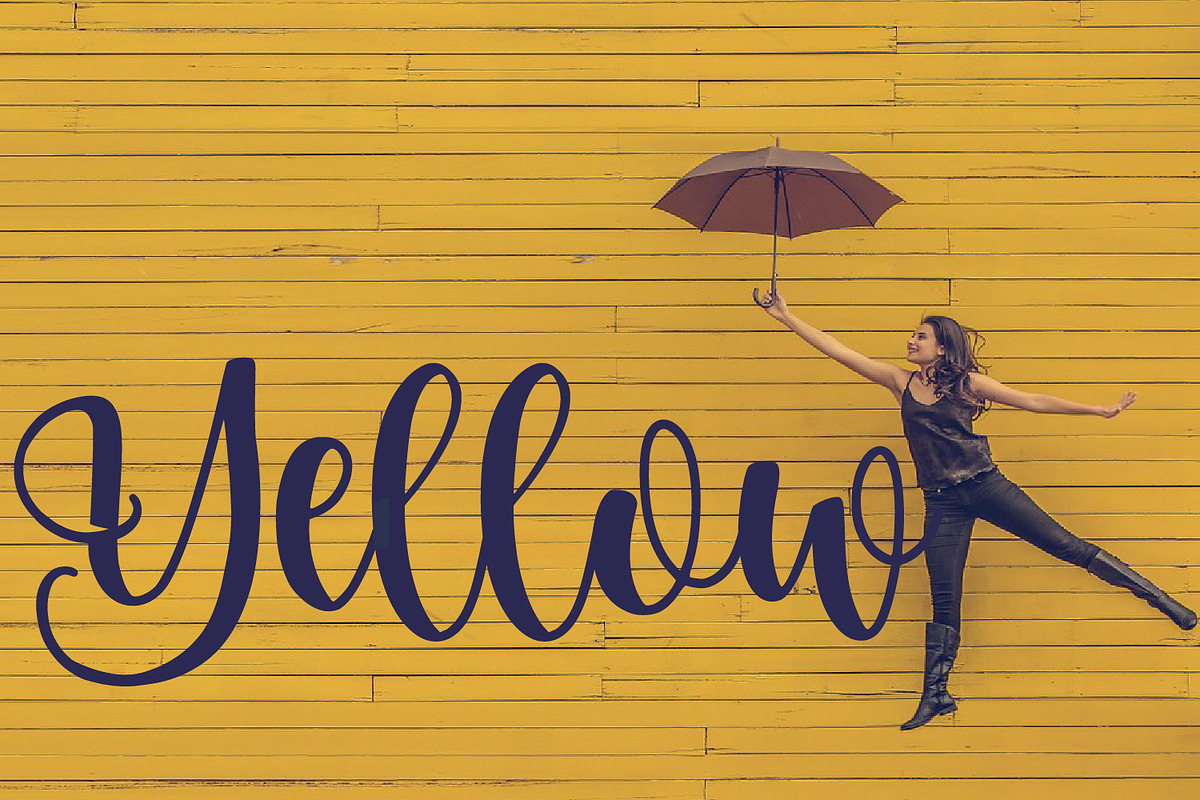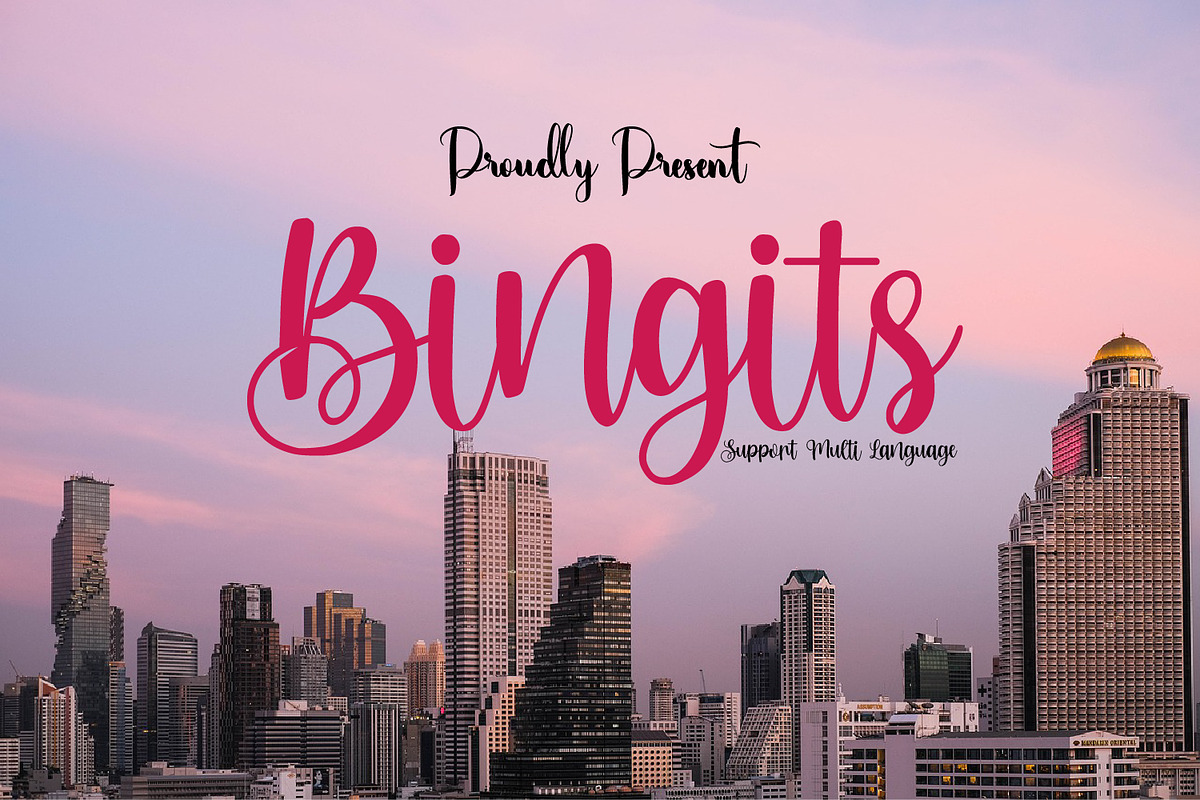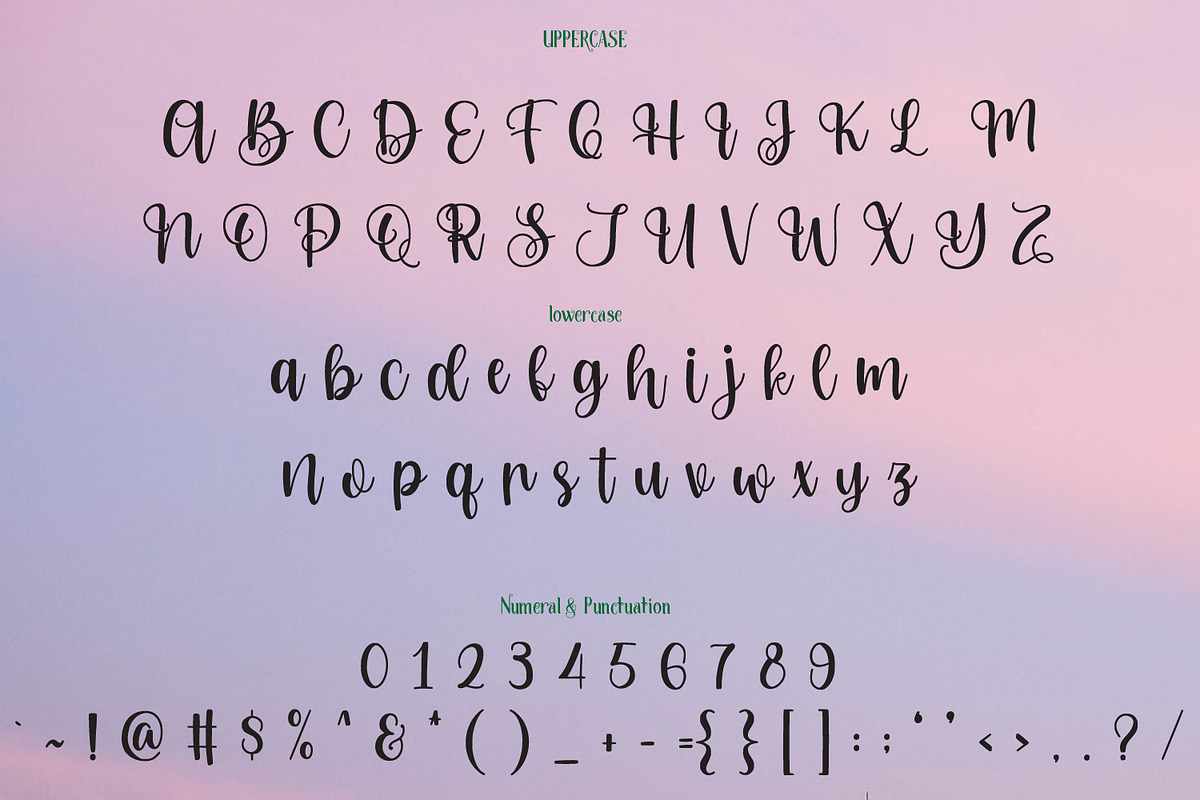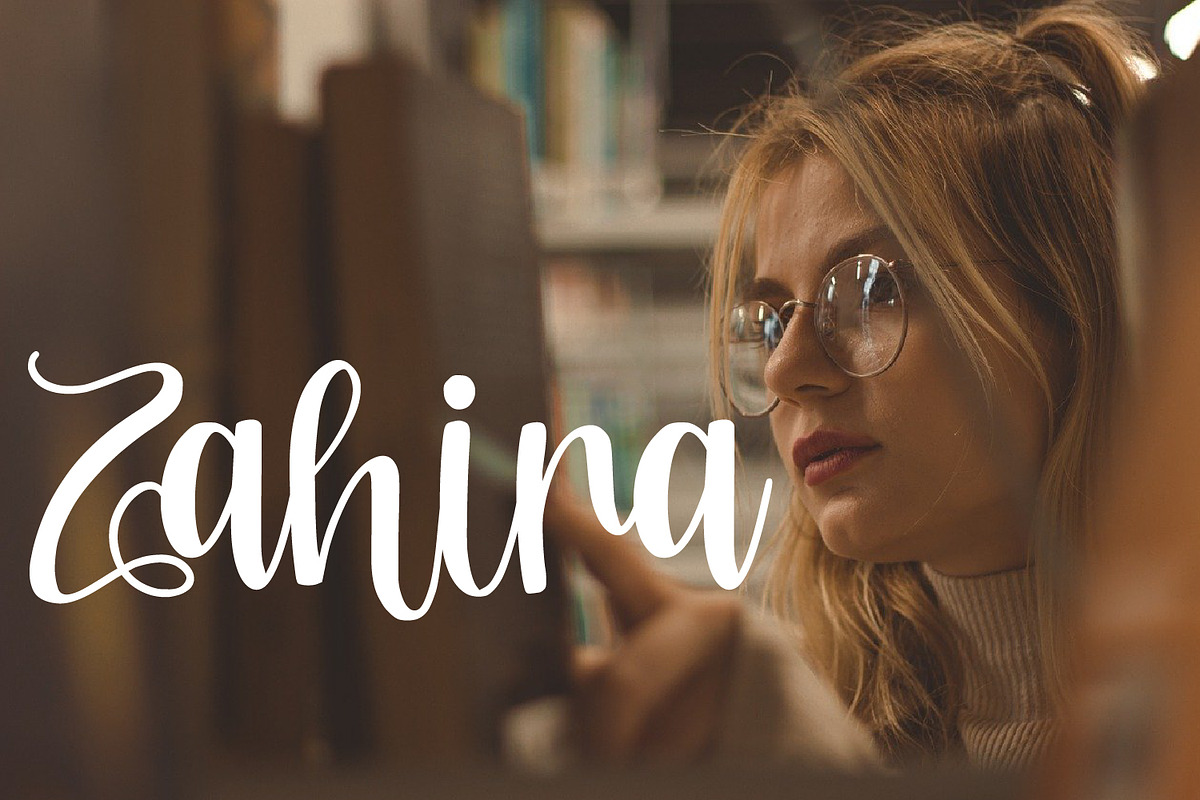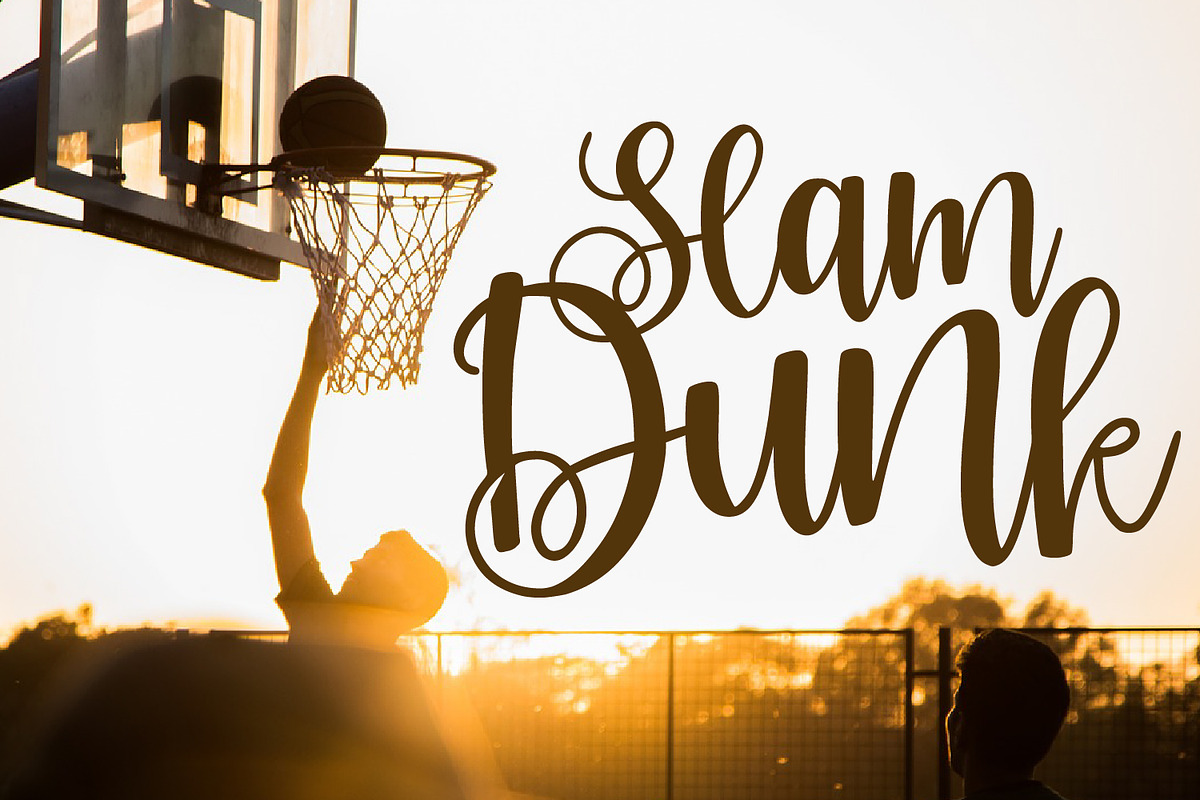
Bingits Script
Bingits is a lovely and timeless handwritten font. It is the best choice for creating eye catching logos, branding and quotes. Every letter has a unique and beautiful touch, which will make your design come alive!